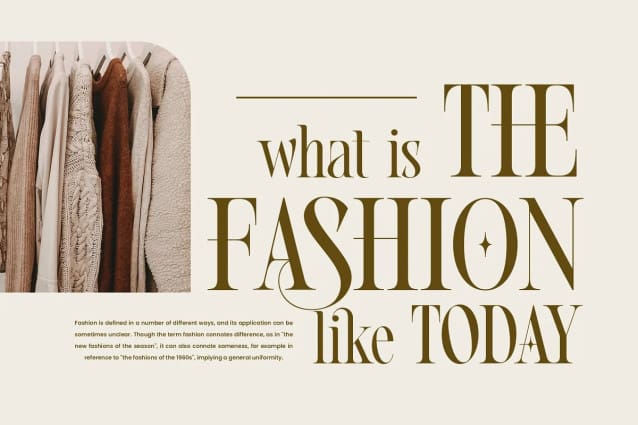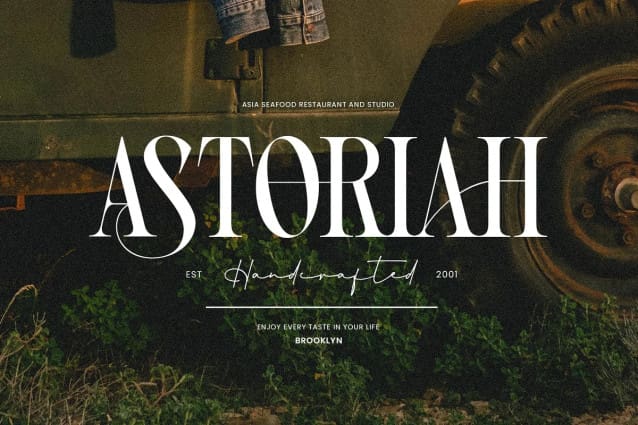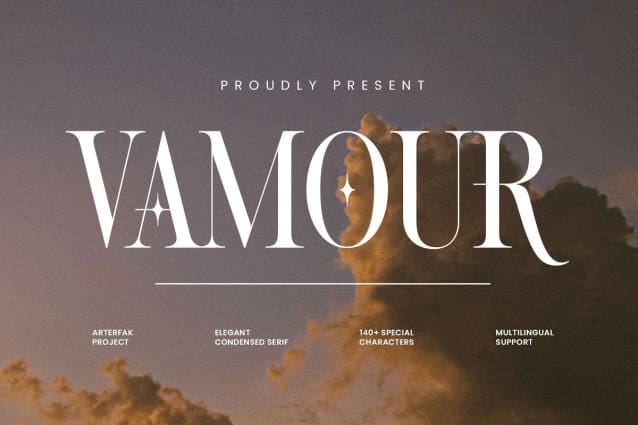
Vamour Font
Vamour Font, a font that exudes elegance and luxury. With its condensed form and modern-classic design, it adds sophistication to any project. Equipped with stylistic alternates, ligatures, and multilingual support, Vamour is perfect for branding, posters, quotes, and more.
Vamour offers timeless aesthetics and versatility that are ideal for luxury magazines, editorials, and stylish branding projects. With sleek lines and elegant curves, this font captures sophistication effortlessly.